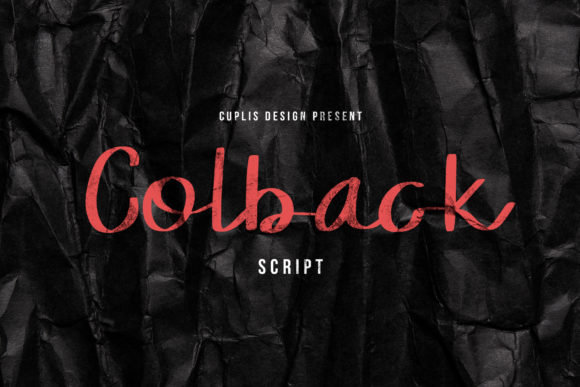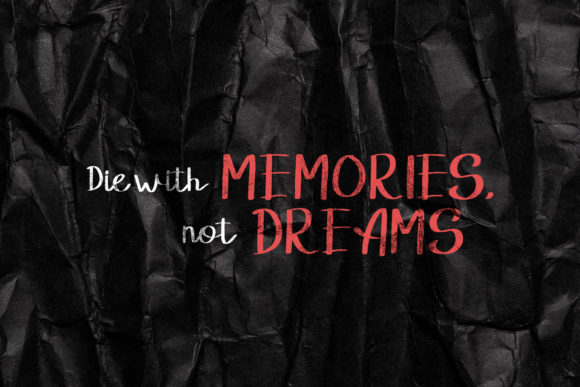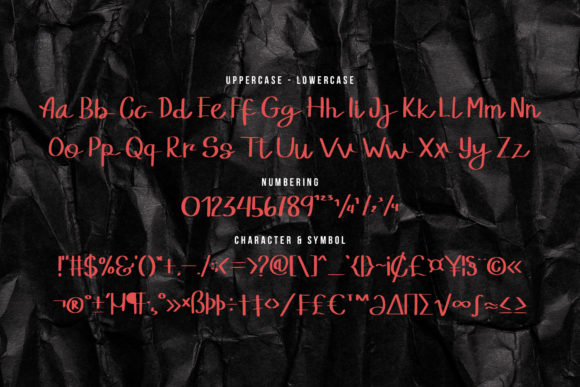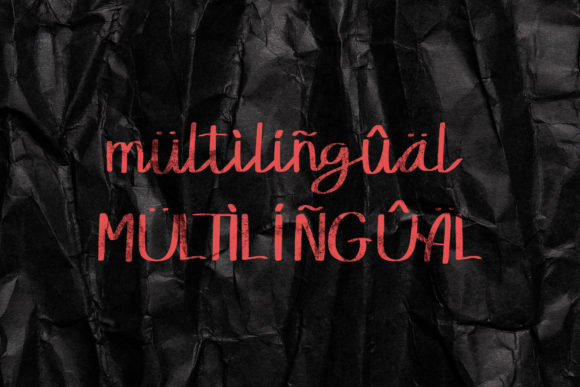
About Colback Font
Colback is a simple and well balanced handwritten font. Its natural and unique style makes it incredibly fitting to a large pool of designs.